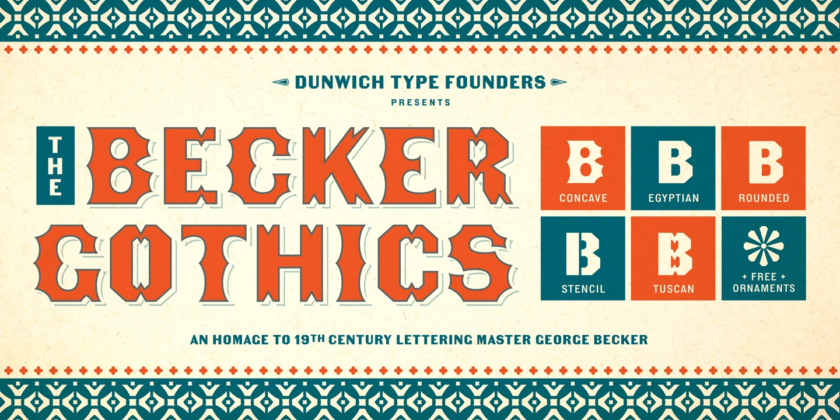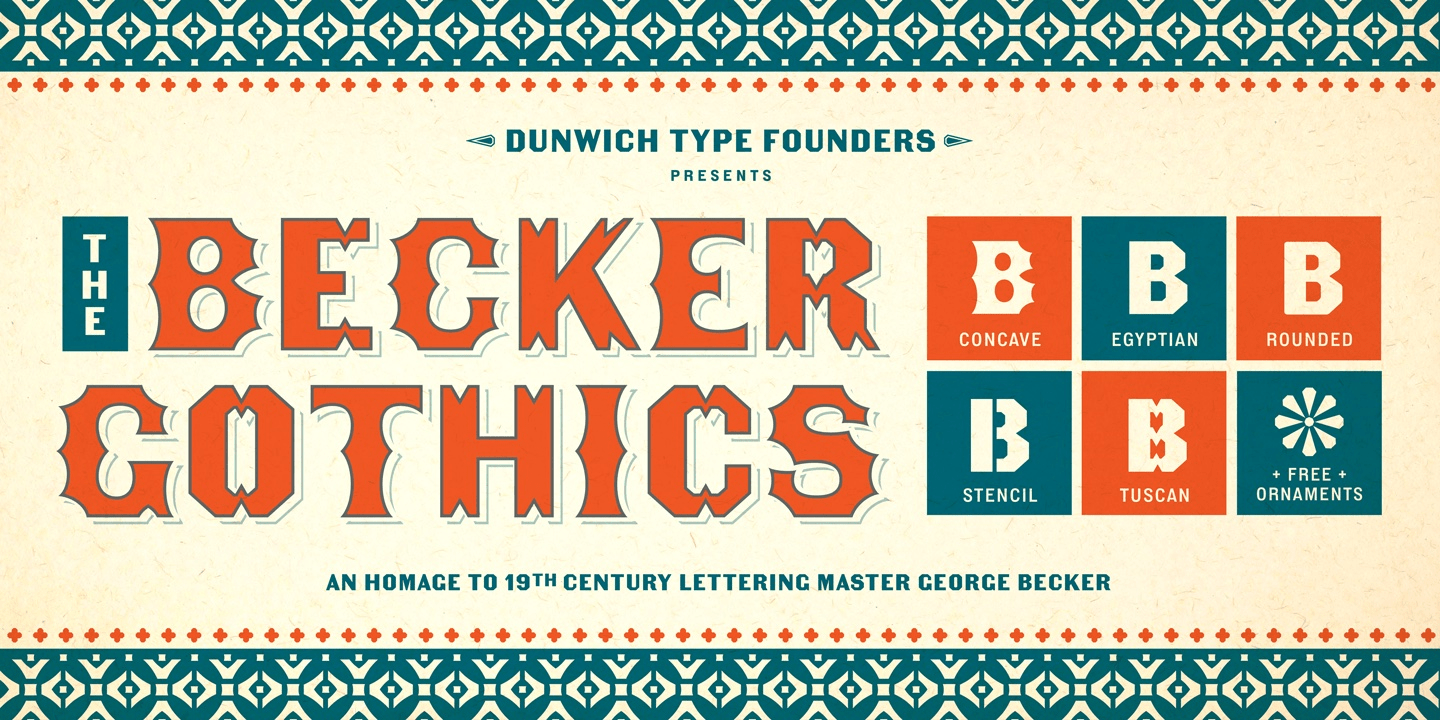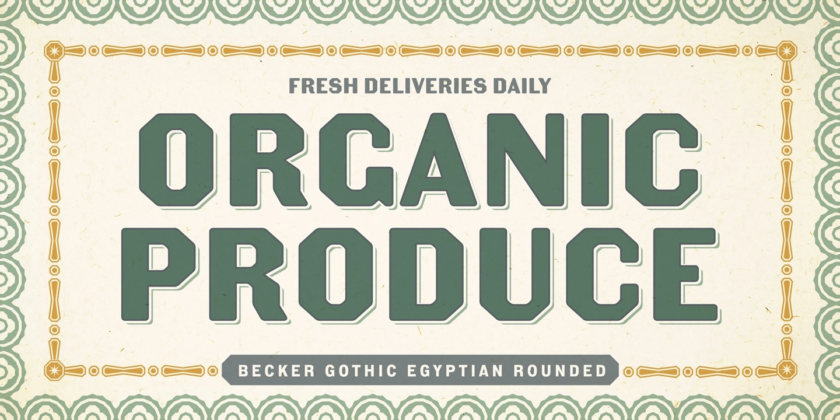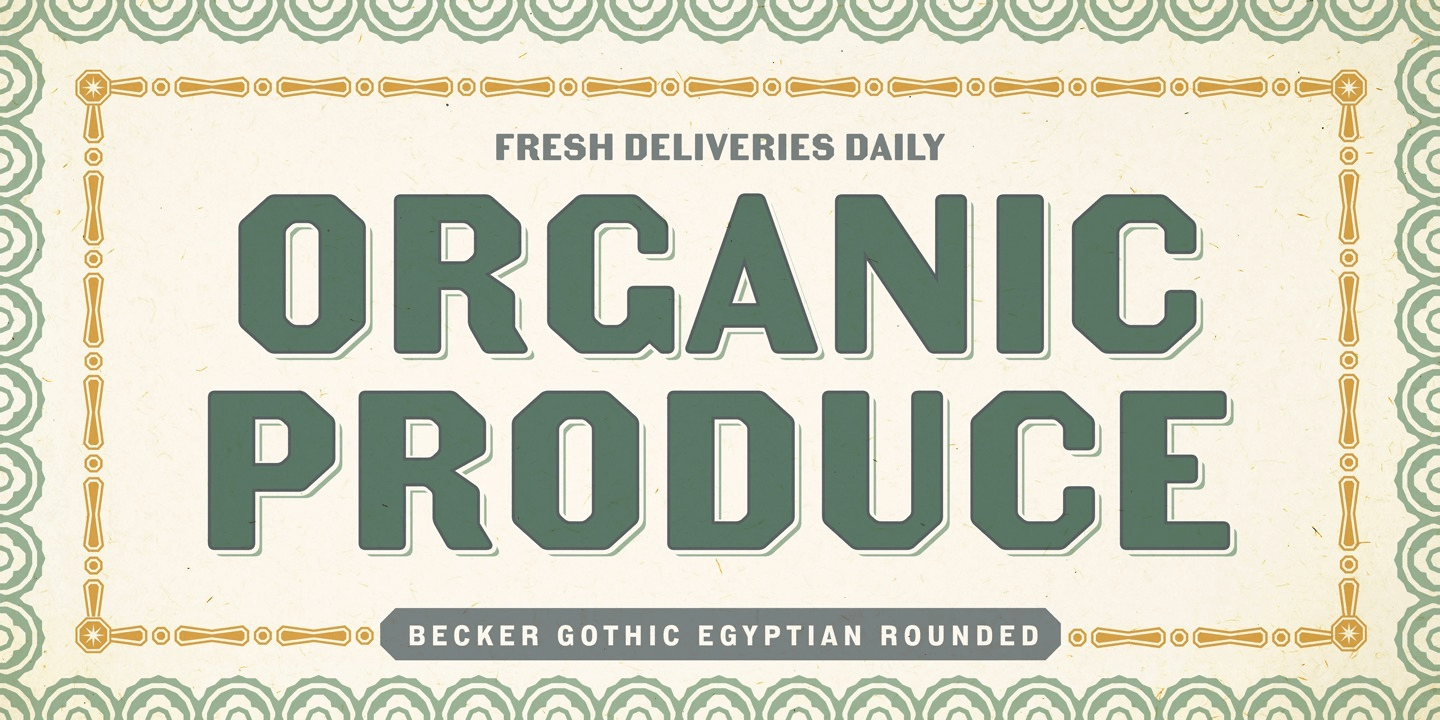
Becker Gothics
About Becker Gothics
An Exemplary Quintet The Becker Gothics pay homage to the nineteenth century American lettering master George Becker. Designer James Puckett has given new life to the ingenious gothic alphabets found in Becker's 1854 lettering manual Ornamental Penmanship.…